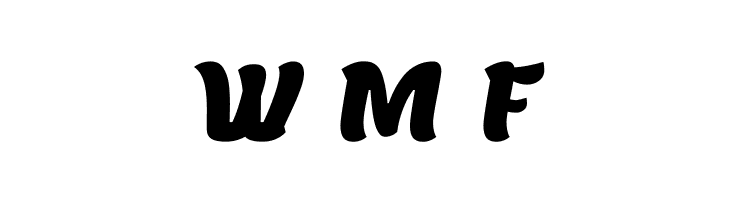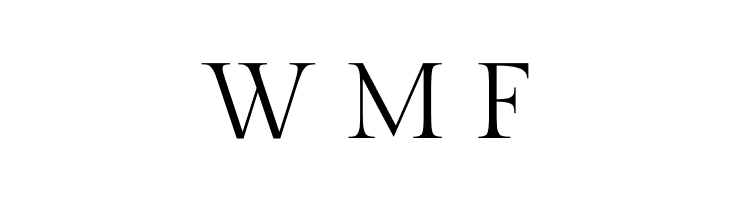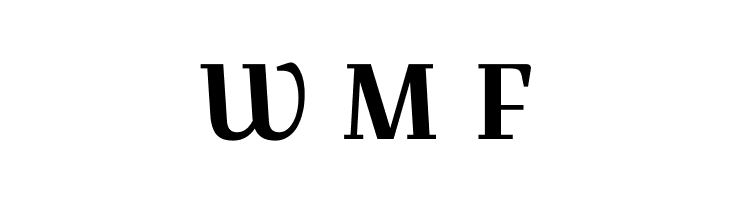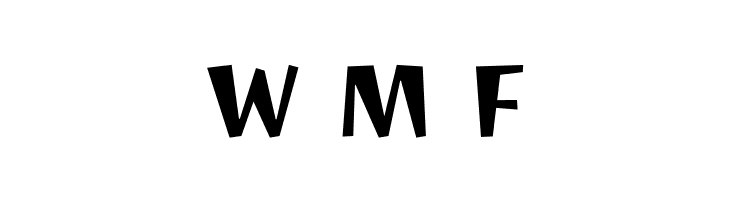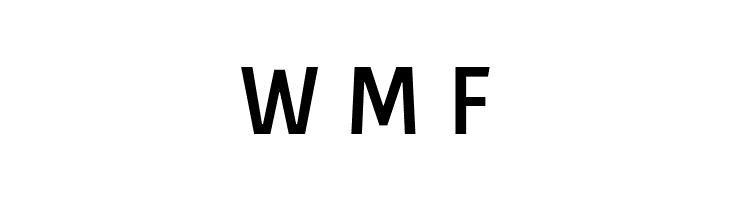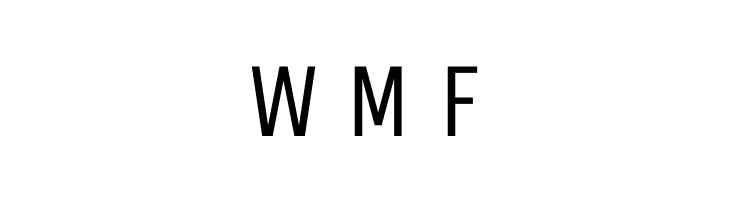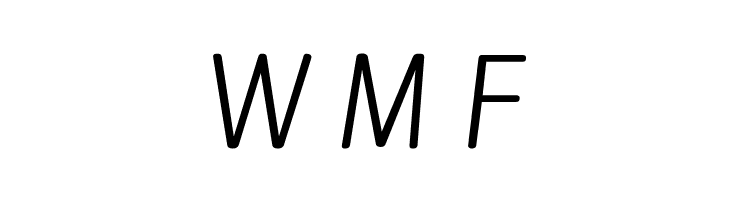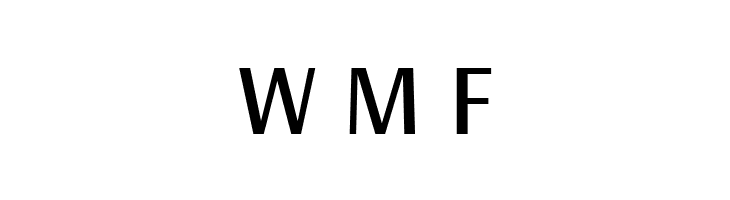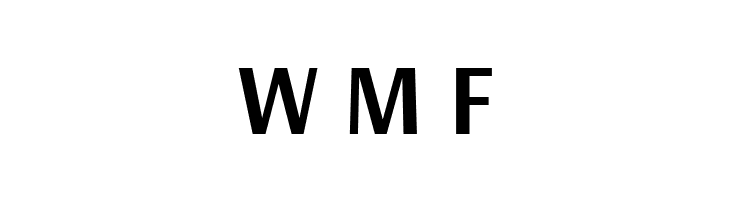
A playful, bold font with rounded edges and a slightly italicized style.
A classic serif font with high contrast and elegant details, perfect for refined designs.
A playful and whimsical font with bold curves and sharp edges.
A playful and dynamic font with bold, irregular letterforms.
A modern, clean sans-serif font with a slightly condensed style.
A modern, geometric typeface with a clean and sleek design.
A modern serif font with elegant, well-proportioned characters and balanced strokes.
A modern, rounded sans-serif font with a clean and balanced design.
A modern sans-serif font with clean lines and balanced proportions.
A bold, modern sans-serif font with excellent readability and balanced proportions.